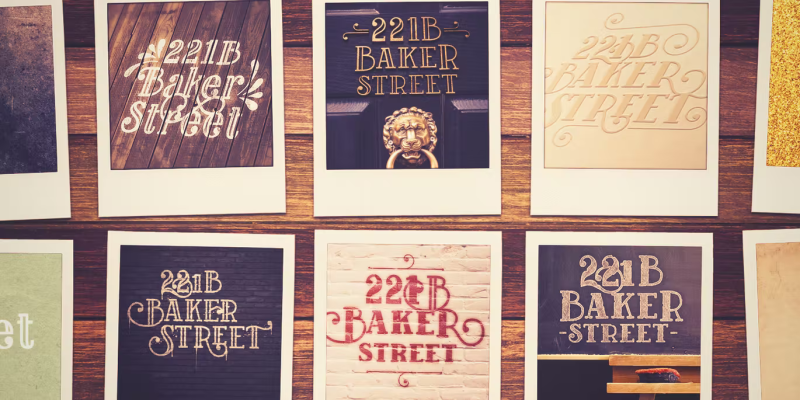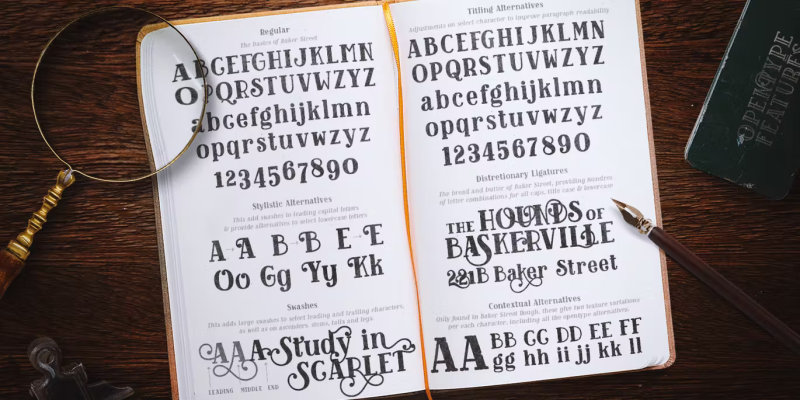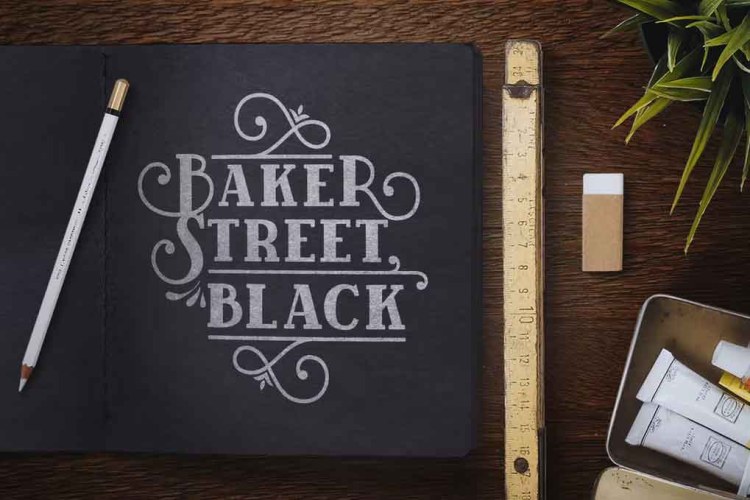
BakerStreet Black Font
Baker Street was inspired by a recent trip to London, England where I happened upon a bustling pub with beautiful typographic signage. Early sketches created an array of…
Baker Street was inspired by a recent trip to London, England where I happened upon a bustling pub with beautiful typographic signage. Early sketches created an array of specialized ligatures from which the font really took shape. The family is comprised of regular, italic, inline and a rustic textured style. Baker Street delivers a multitude of Opentype features, primarily including hundreds of discretionary ligatures that connect letter pairs through varying flourishes. These distinct ligatures are used in combinations between two capital letters, two lowercase letters, uppercase to lowercase pairs and specific number combinations. For a number of capital and lowercase letters, large swashes expand above and below the characters. Contextual swashes are also applied to some characters when placed at the beginning or end of a word. Stylistic Alternatives and Titling Alternatives offer distinct style variations to capital letters. Tabular Lining and Oldstyle Figures provide several numerical alternatives.
Lastly, the family also includes two sets of ornaments created specially to work with Baker Street’s style.
With all that, Baker Street provides each and every user the tools to solve their own case. The game is on!
Where BakerStreet Black Font works best
Reports, white papers and book interiors hold the eye longer when the text face has real serifs; BakerStreet Black Font keeps that rhythm without looking old-fashioned.
Food, spirits and cosmetics brands lean on serif wordmarks to suggest age and care. BakerStreet Black Font gives that signal at wordmark size.
Set BakerStreet Black Font for the body of an award or a diploma and keep the recipient name in a script; the pairing is what makes a document feel official.
What kind of work does BakerStreet Black Font suit?